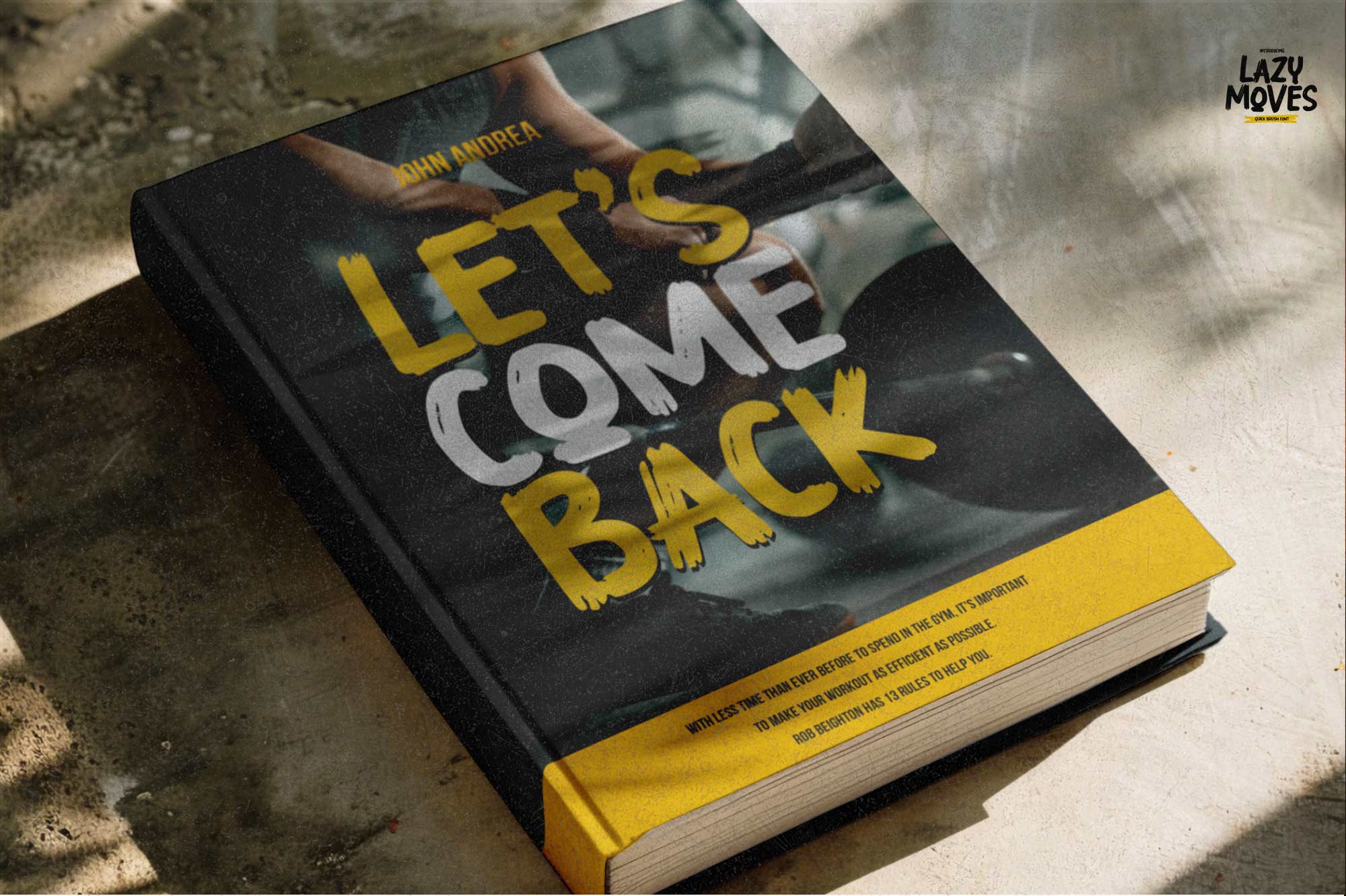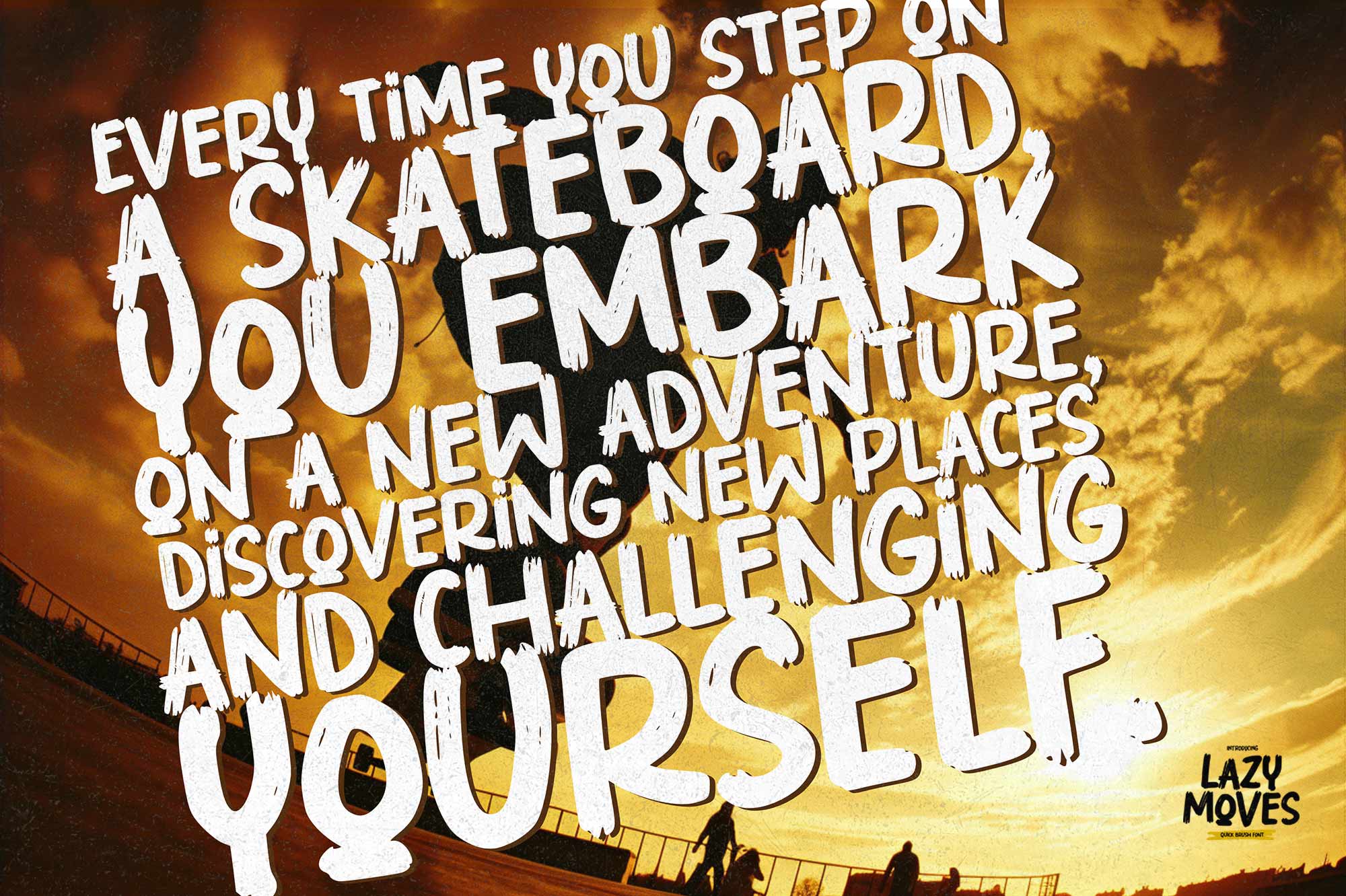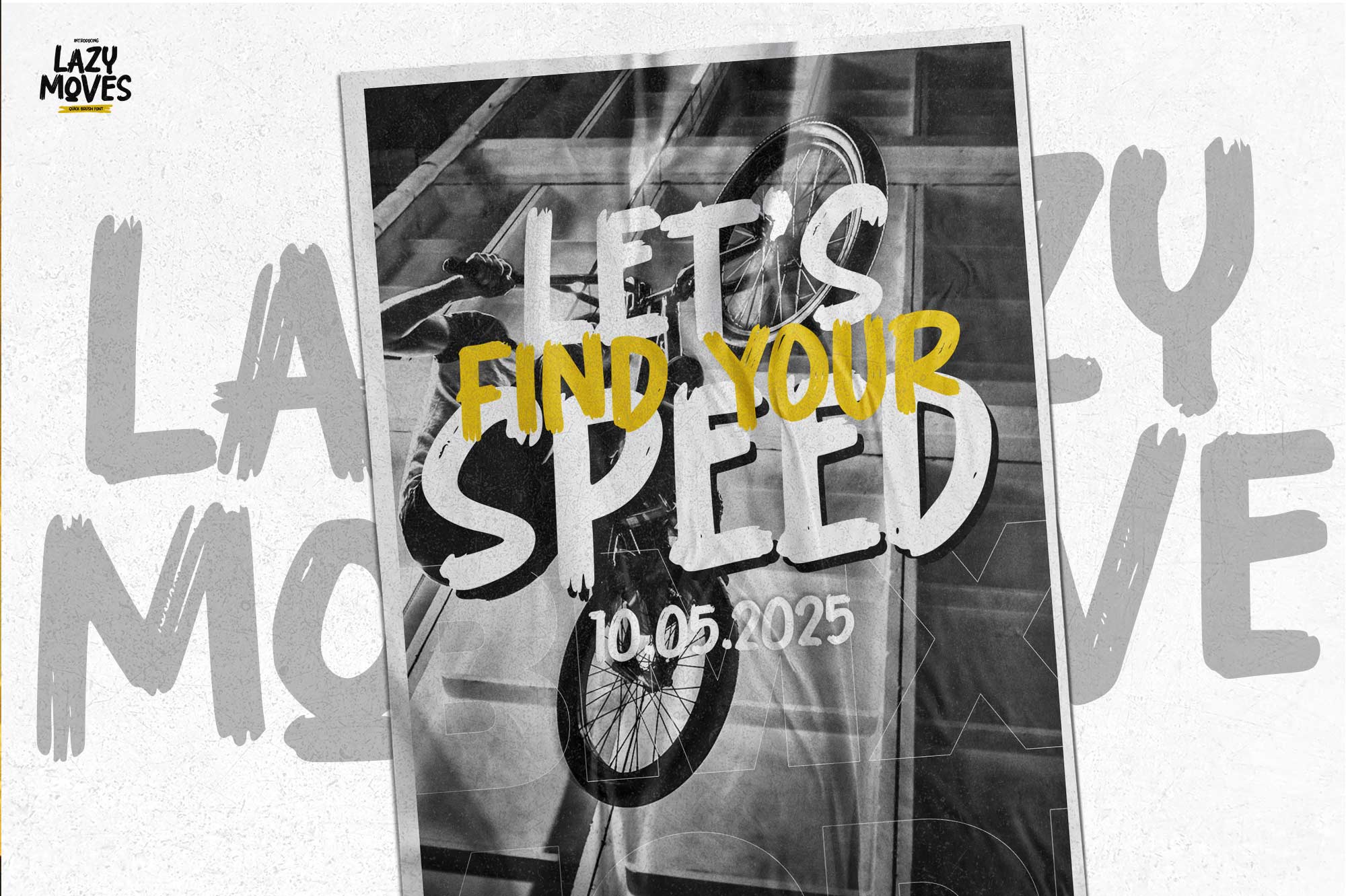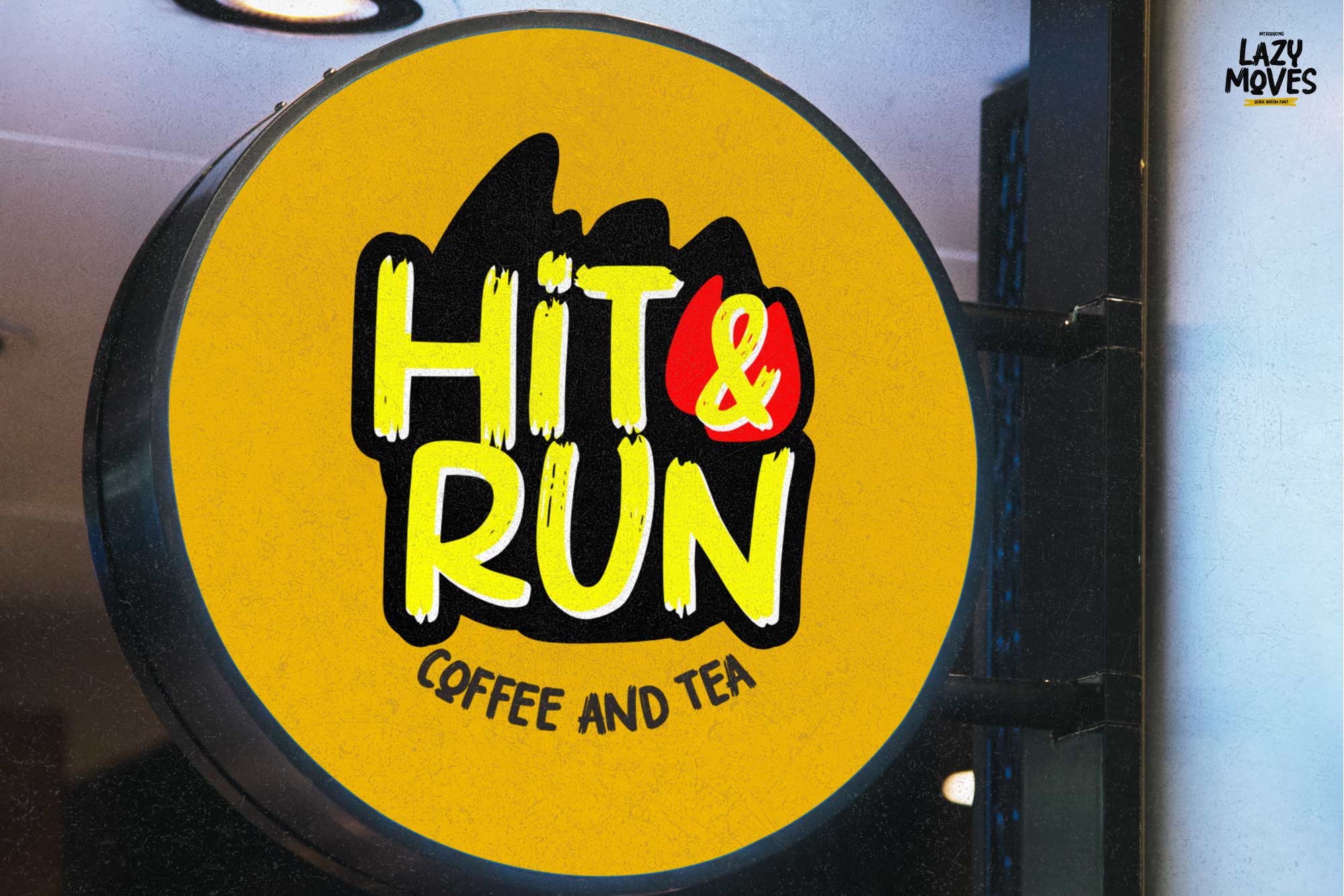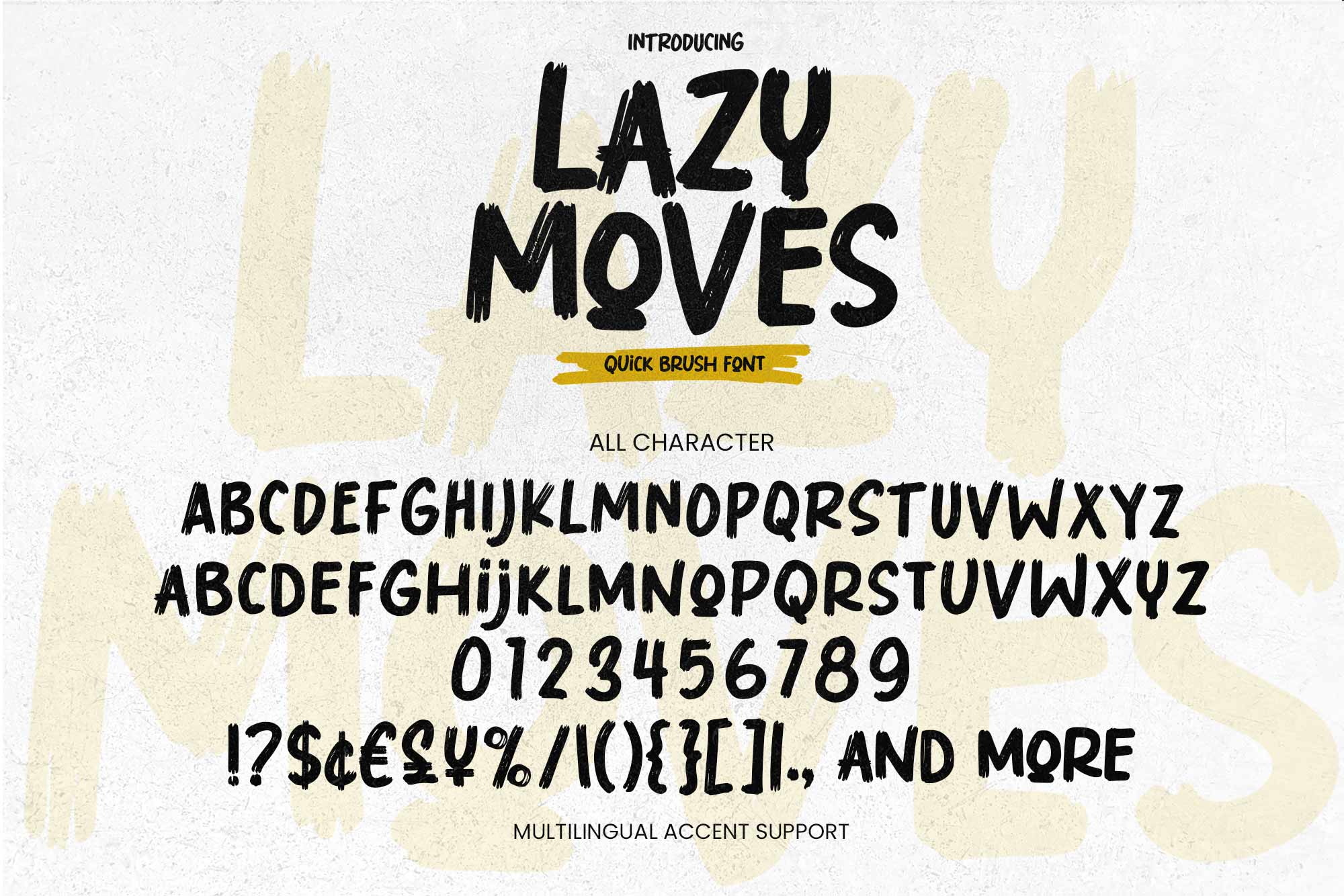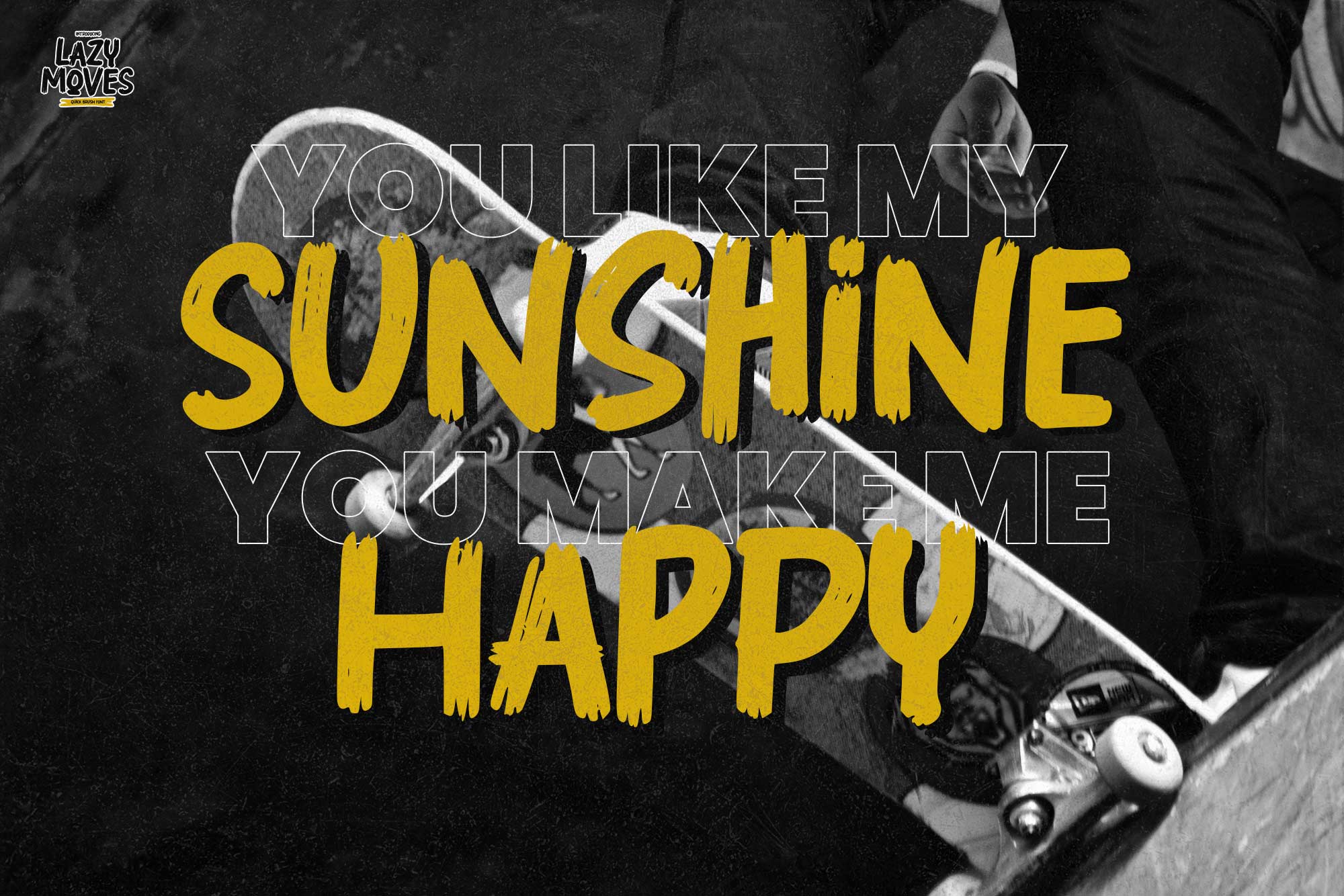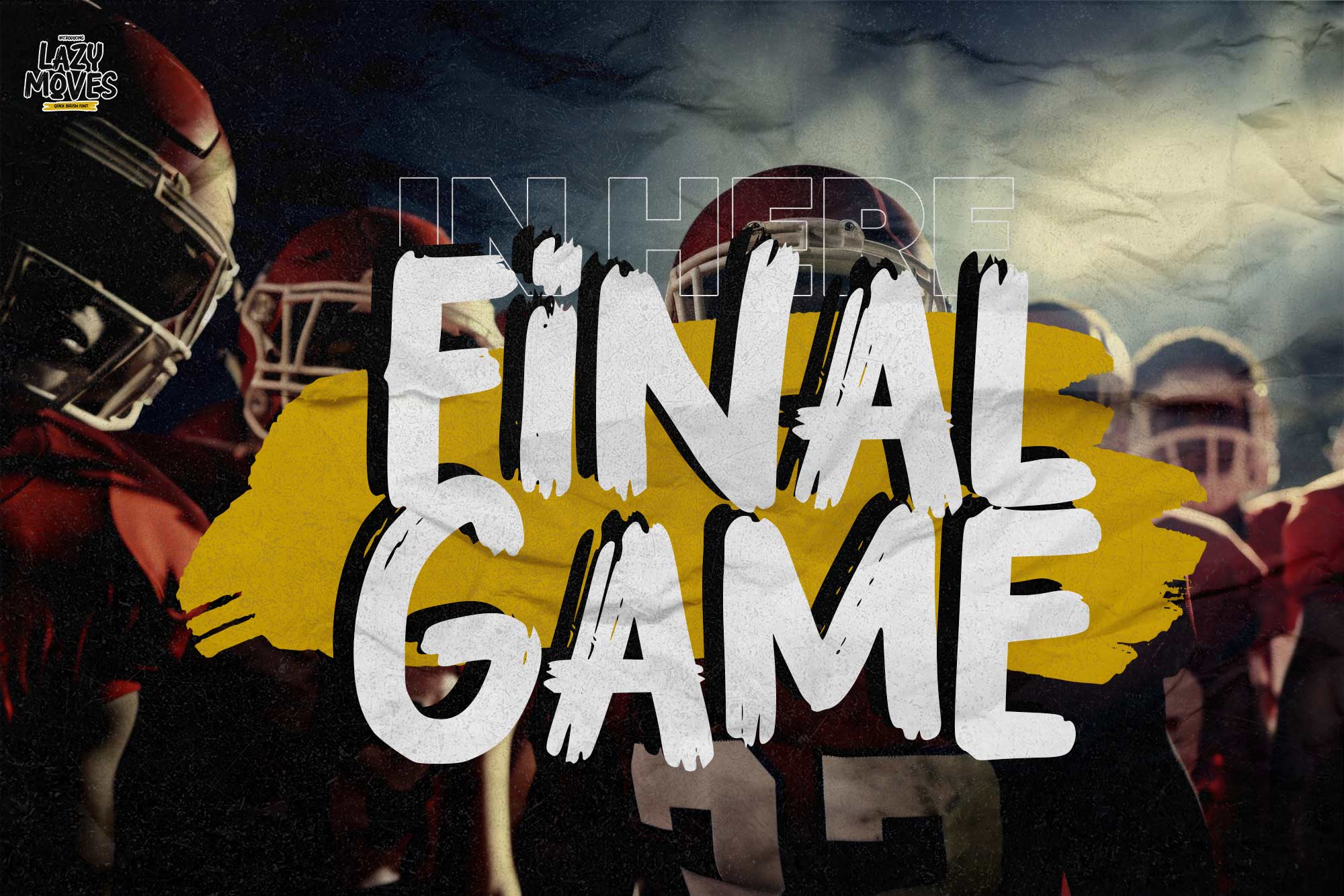
Lazy Moves
Lazy Moves This is a Quick Brush Font, with brush texture and quick drawing style, this font is perfect for making a strong statement in your designs.
Perfect for:
- Logos
- Posters
- Product packaging
- Branding
- Advertisements
- Invitations
- Stationery
- Wedding designs
- Labels
- Photography watermarks
- Quotes
- and more
Add the bold and authentic character of this Font to your next project and capture the essence of the minimalist aesthetic.